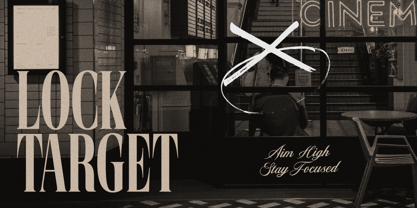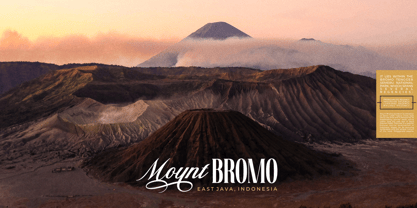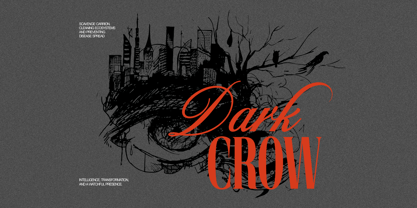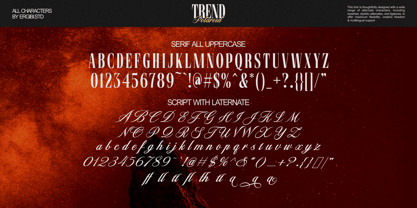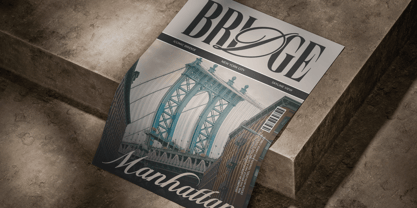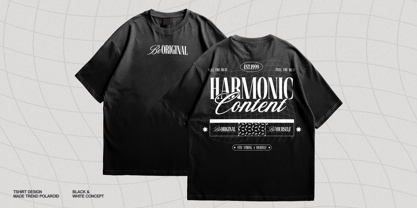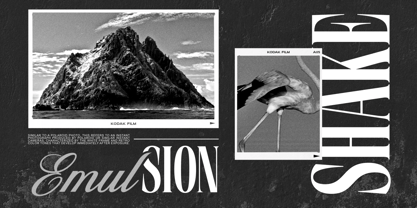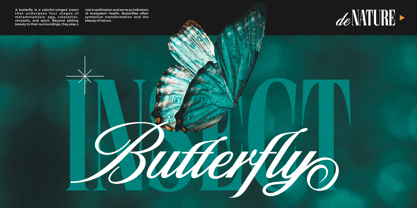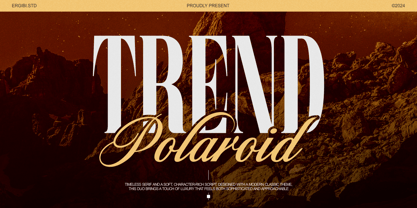
Trend Polaroid
von Ergibi Studio
Die Schriftfamilie Trend Polaroid wurde von Riyadh Rahman entworfen und von Ergibi Studio veröffentlicht. Trend Polaroid enthält 2 Stile und Familienpaketoptionen.
Trend Polaroid is a modern duo font combines the elegance of a refined serif with the bold, edgy style of a classic style-inspired script. timeless serif and a soft, character-rich script. designed with a modern classic theme, this duo brings a touch of luxury that feels both sophisticated and approachablePerfect for dynamic designs, it brings together sophistication and urban energy, making it ideal for branding, posters, merchandise, and creative projects that demand a contemporary and artistic vibe.